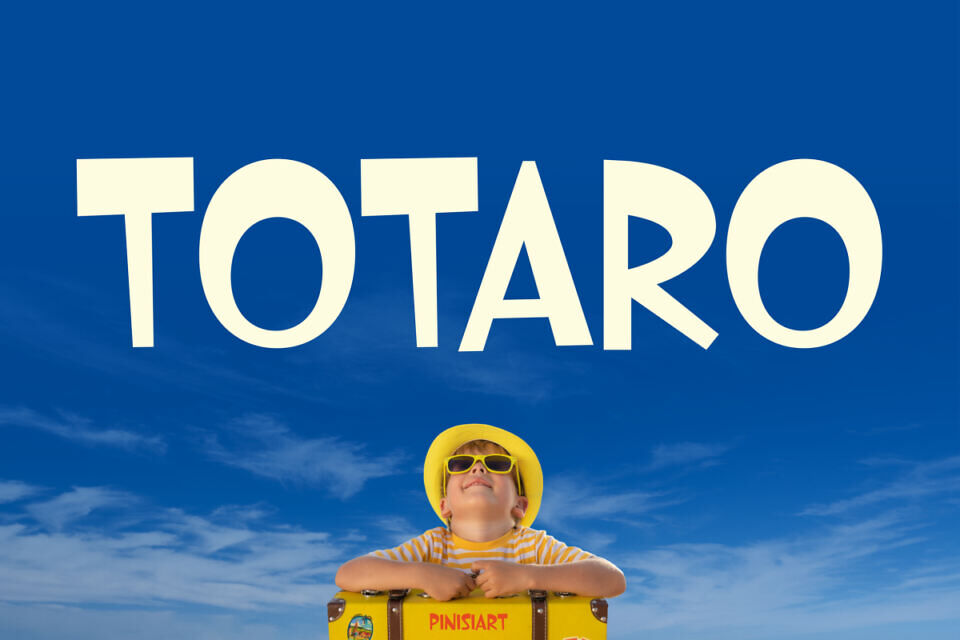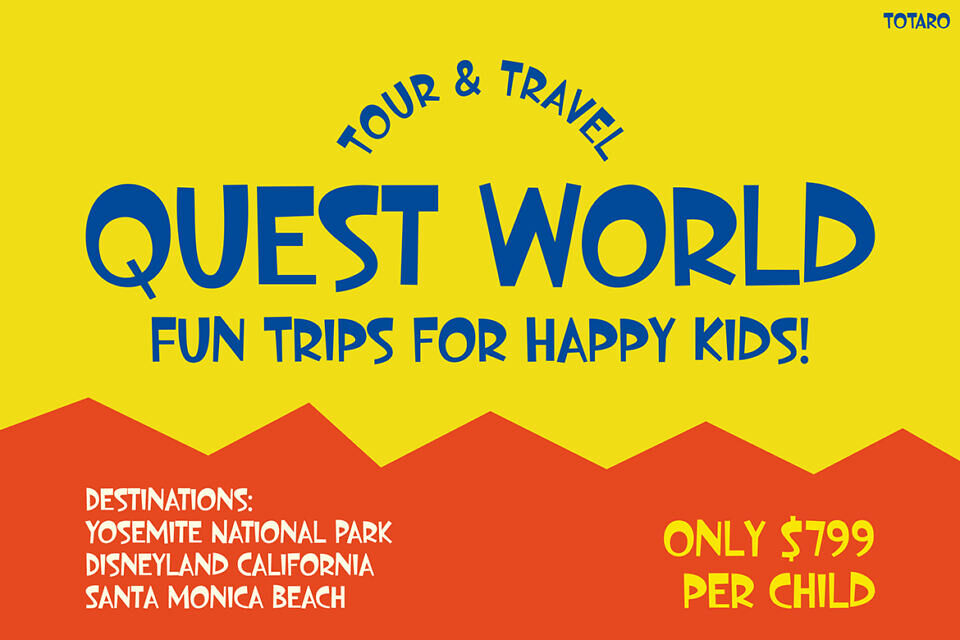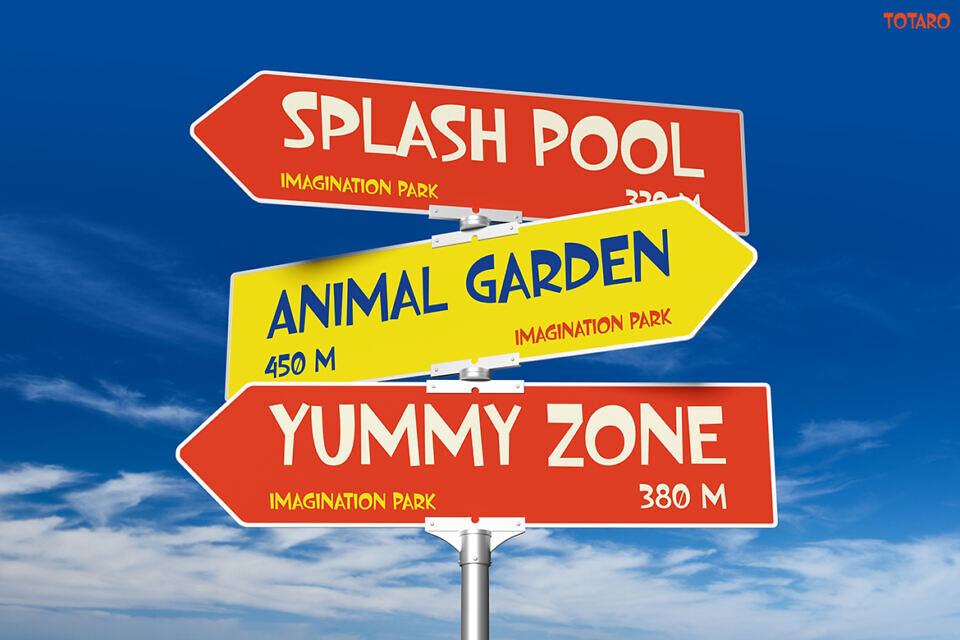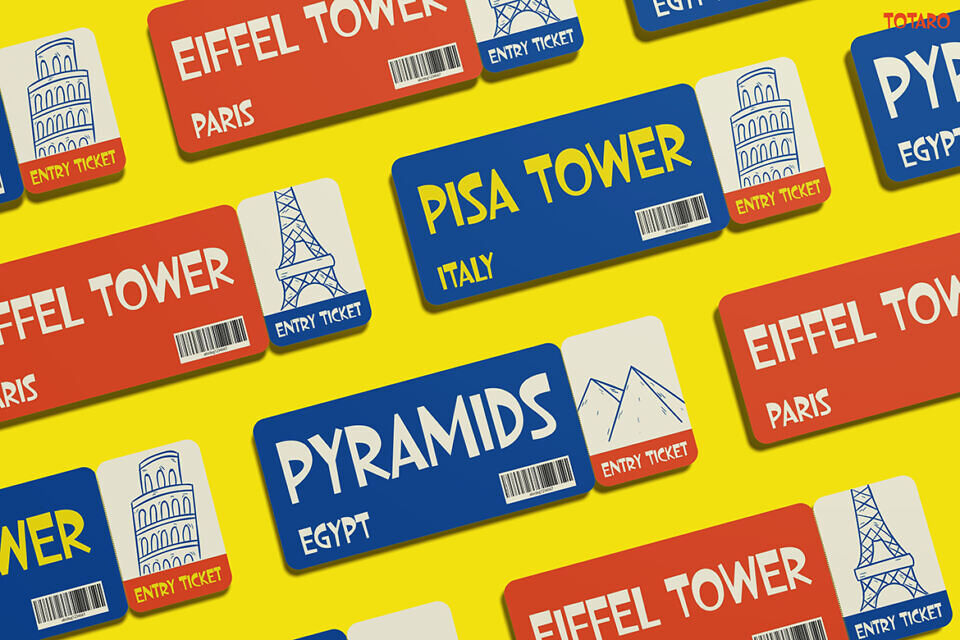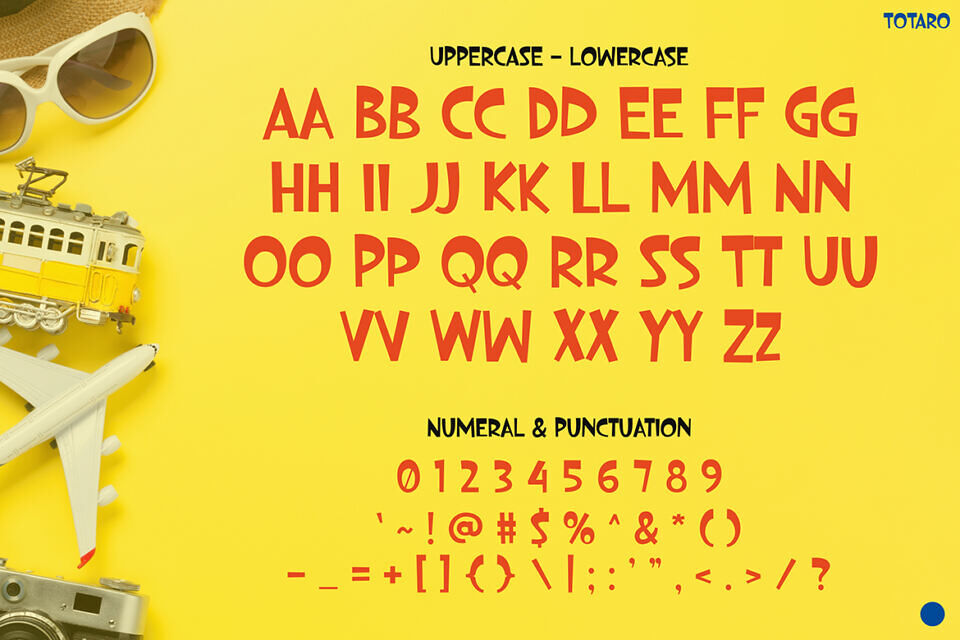
TOTARO is a fun, all-caps kids display font bursting with energy, designed to bring excitement to your projects. With chunky, rounded characters and clean geometric structure, this font adds a sense of movement and joy to every word. Inspired by travel, summer fun, and childhood wonder, its bold look makes headlines pop and visuals feel dynamic.
The shapes are slightly playful yet highly legible, making it perfect for projects where clarity and enthusiasm are both essential. From signs and labels to banners and storytelling layouts, TOTARO makes every message feel like the start of a great journey. The font balances consistency with creativity—every character is friendly, but never boring.